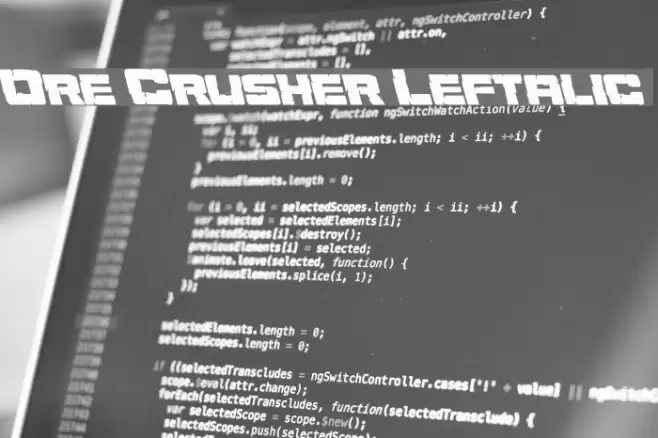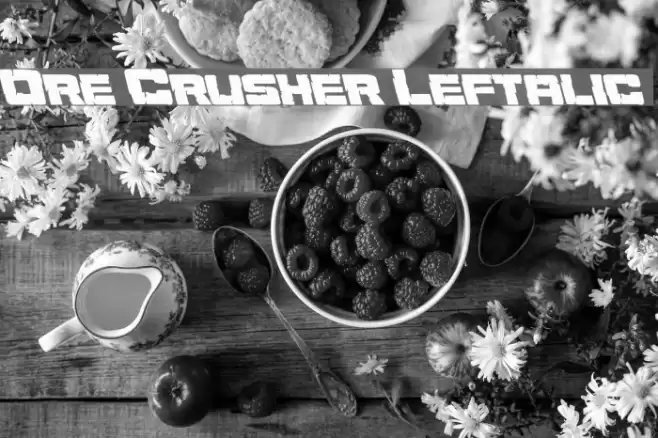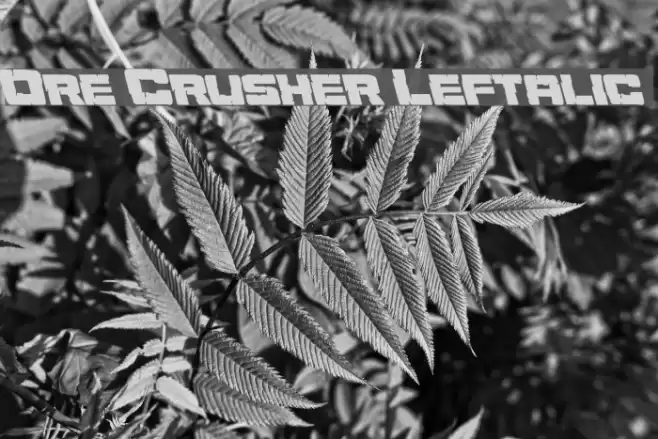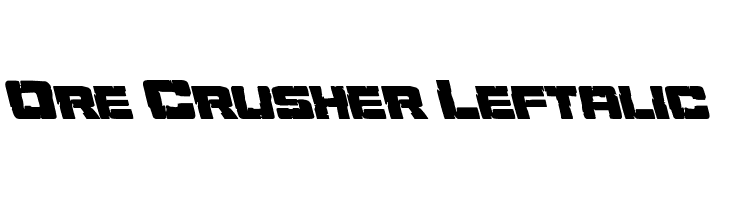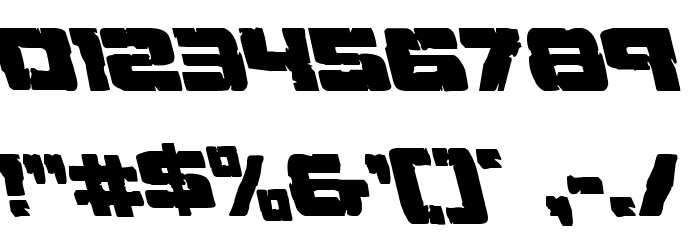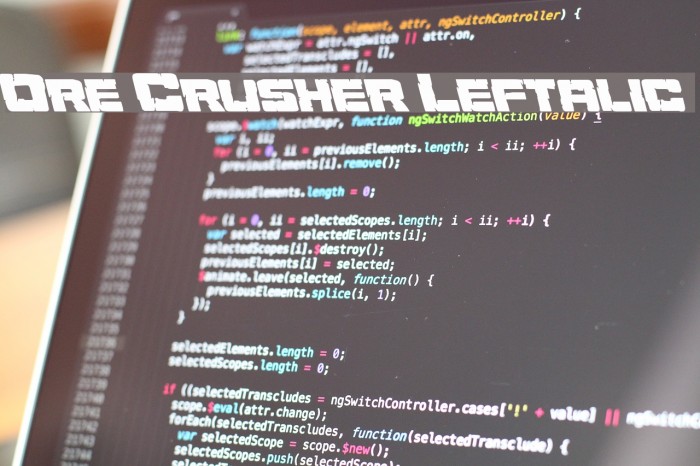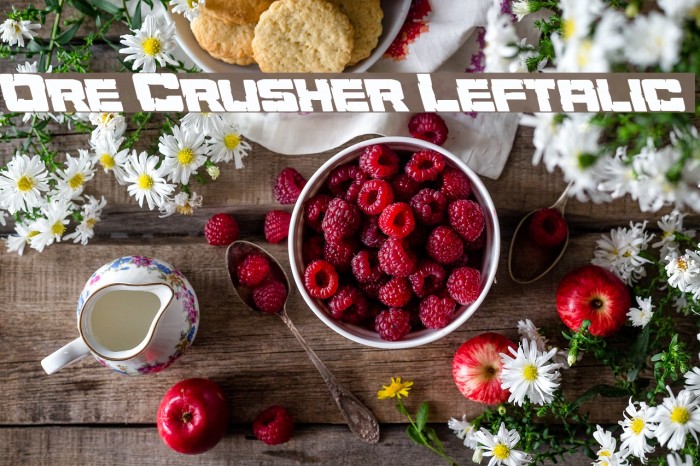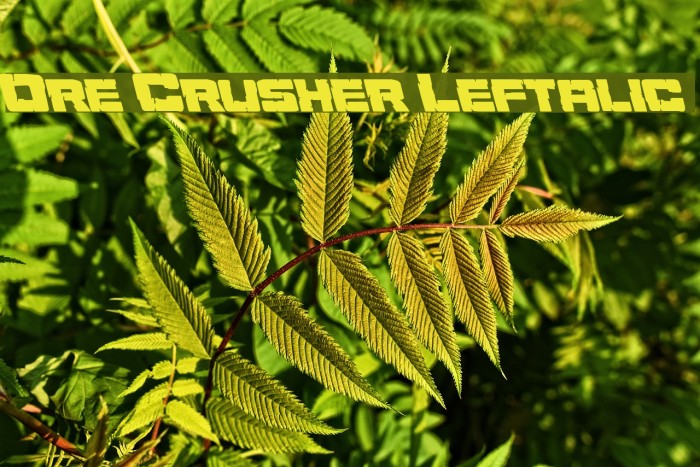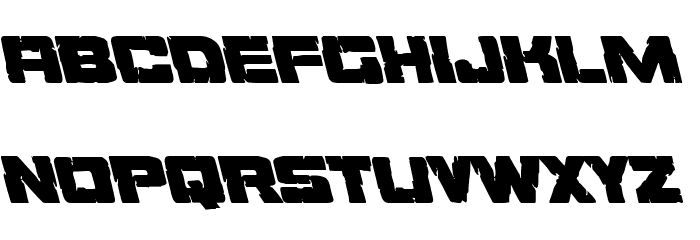
Ore Crusher Leftalic Font
Ore Crusher Leftalic Description
This font exhibits a bold, industrial aesthetic with a distinctly rugged appearance. The characters are heavily stylized with a blocky, geometric structure, featuring sharp angles and a distressed texture that gives them a worn, mechanical feel. The uppercase letters are uniform in height, while the lowercase letters maintain a consistent style, enhancing the font's cohesive look. Numbers and special characters follow the same design principles, ensuring a seamless integration across different uses. The font's unique style makes it ideal for projects that require a strong, impactful visual statement.
A bold, industrial font with a rugged, distressed texture and geometric structure from Fancy fonts.
- Proposed Projects: Ideal for branding, posters, video game graphics, and any project needing a strong, industrial look.
- Overall Style: Industrial, Rugged